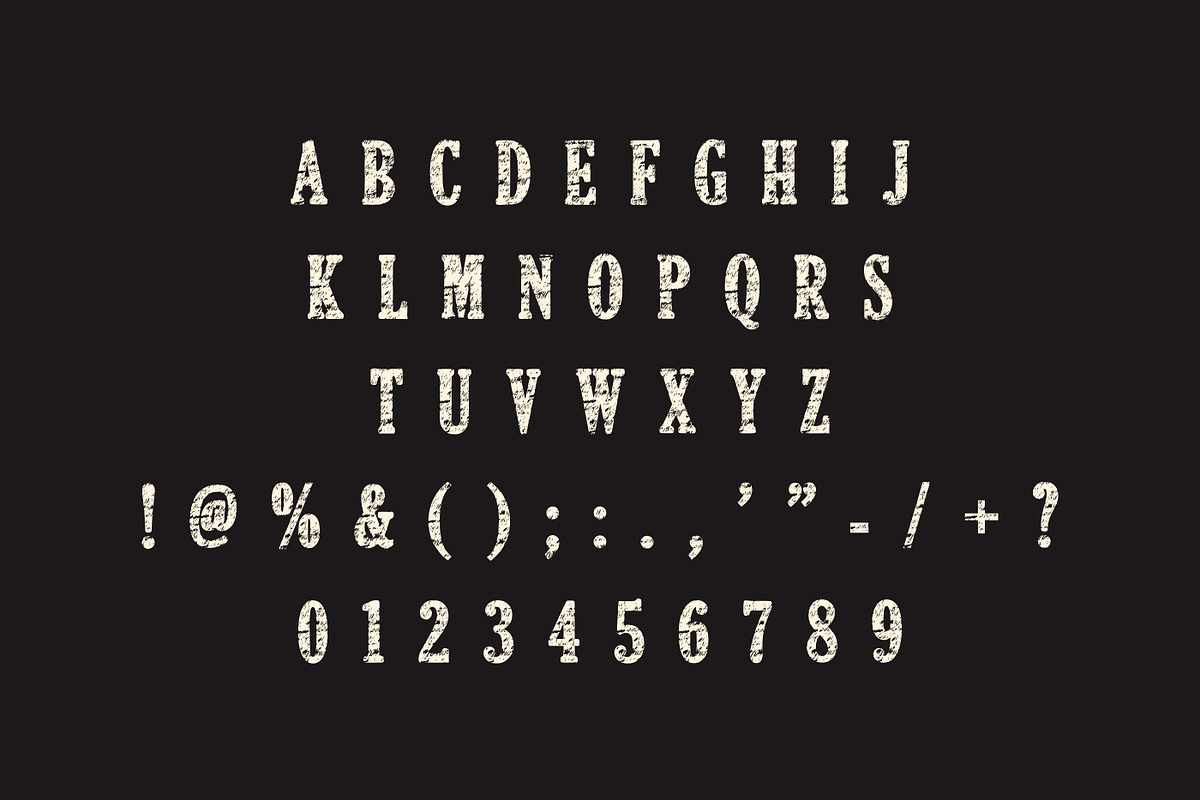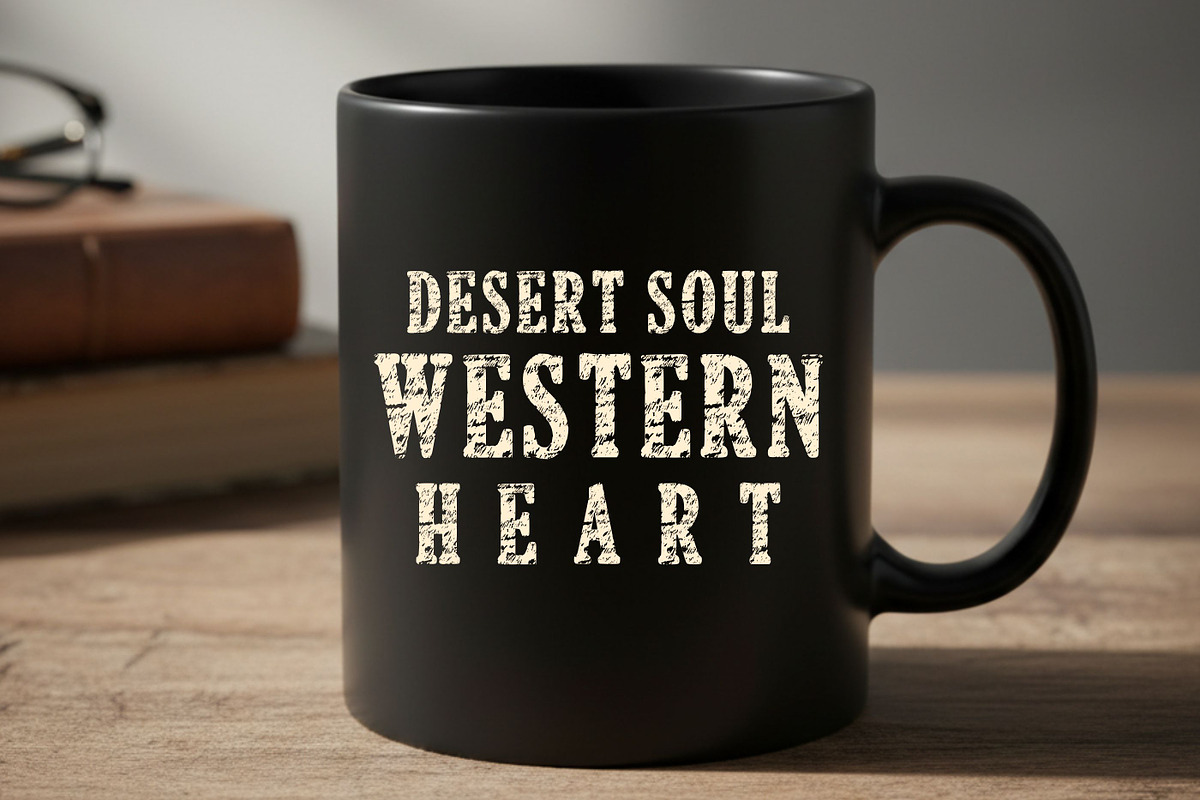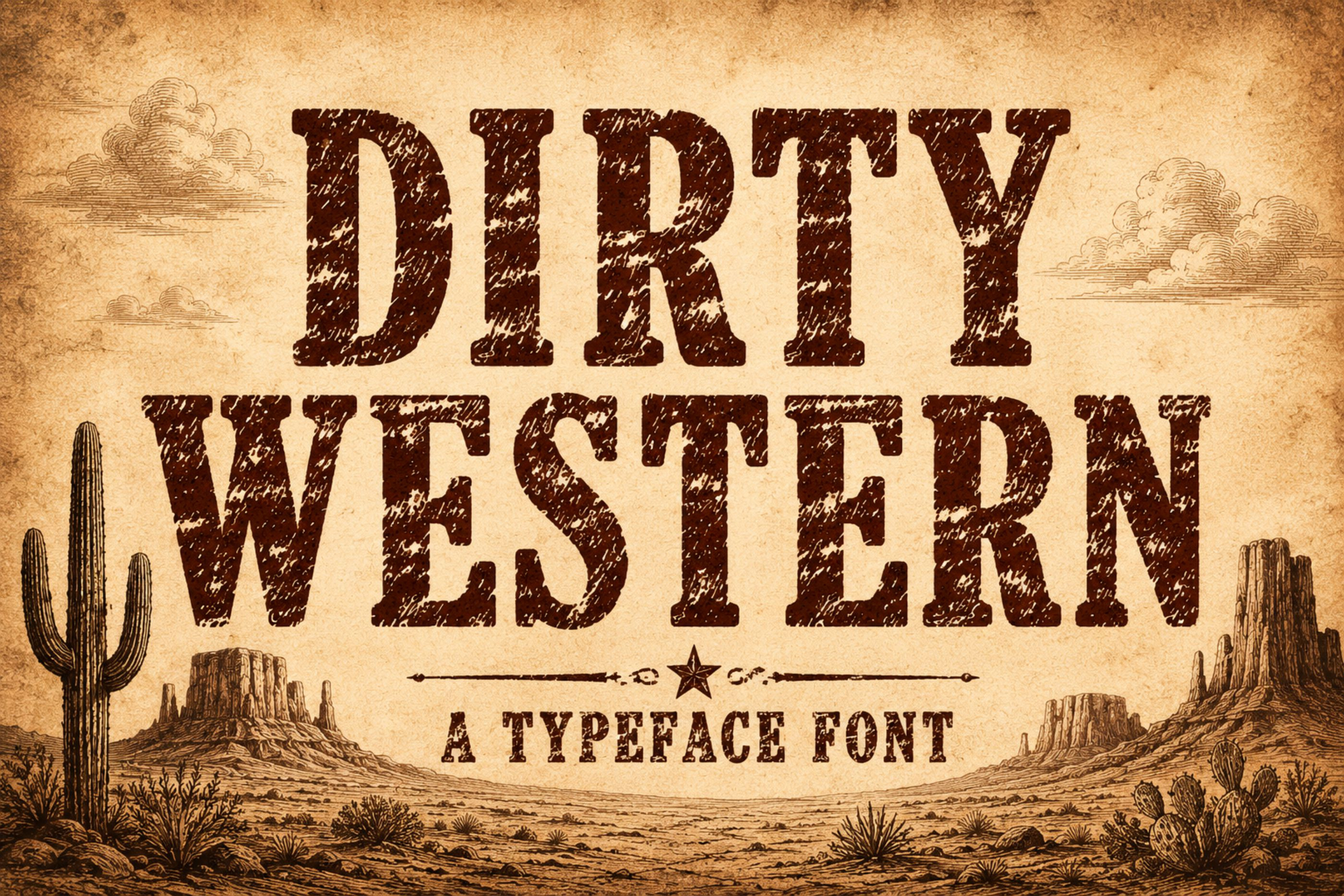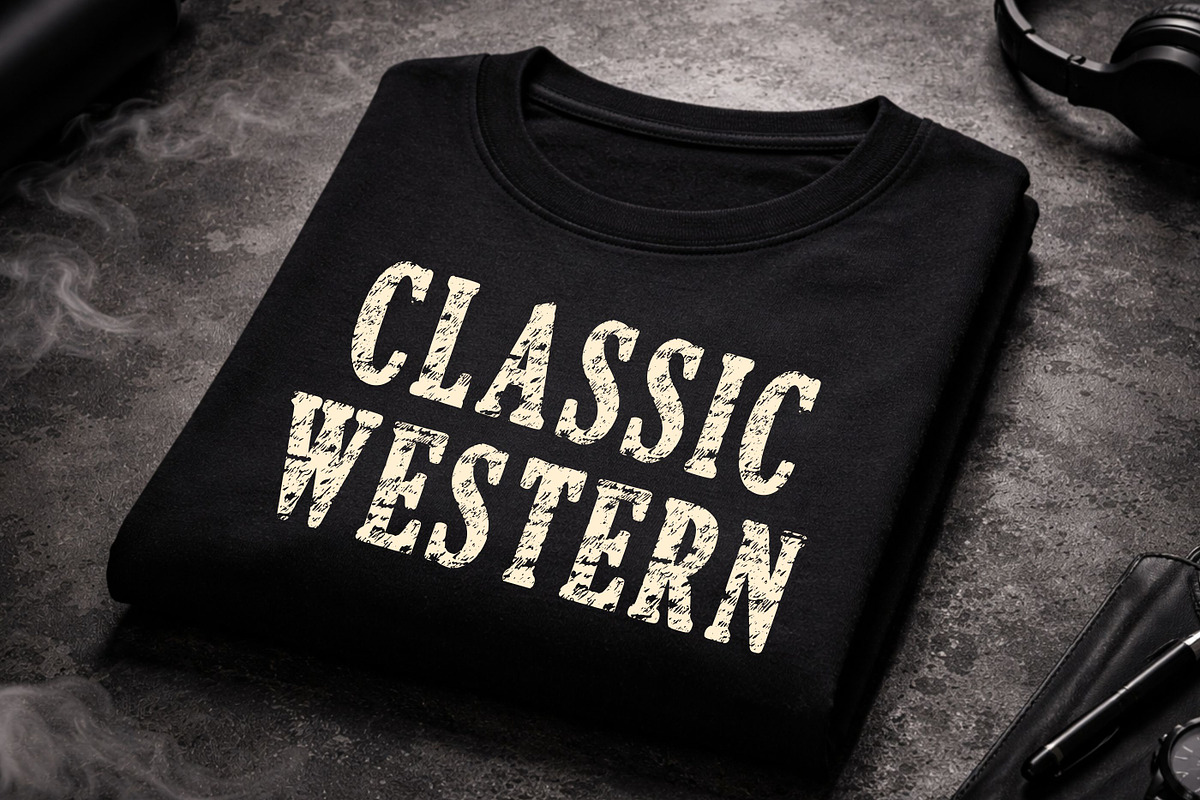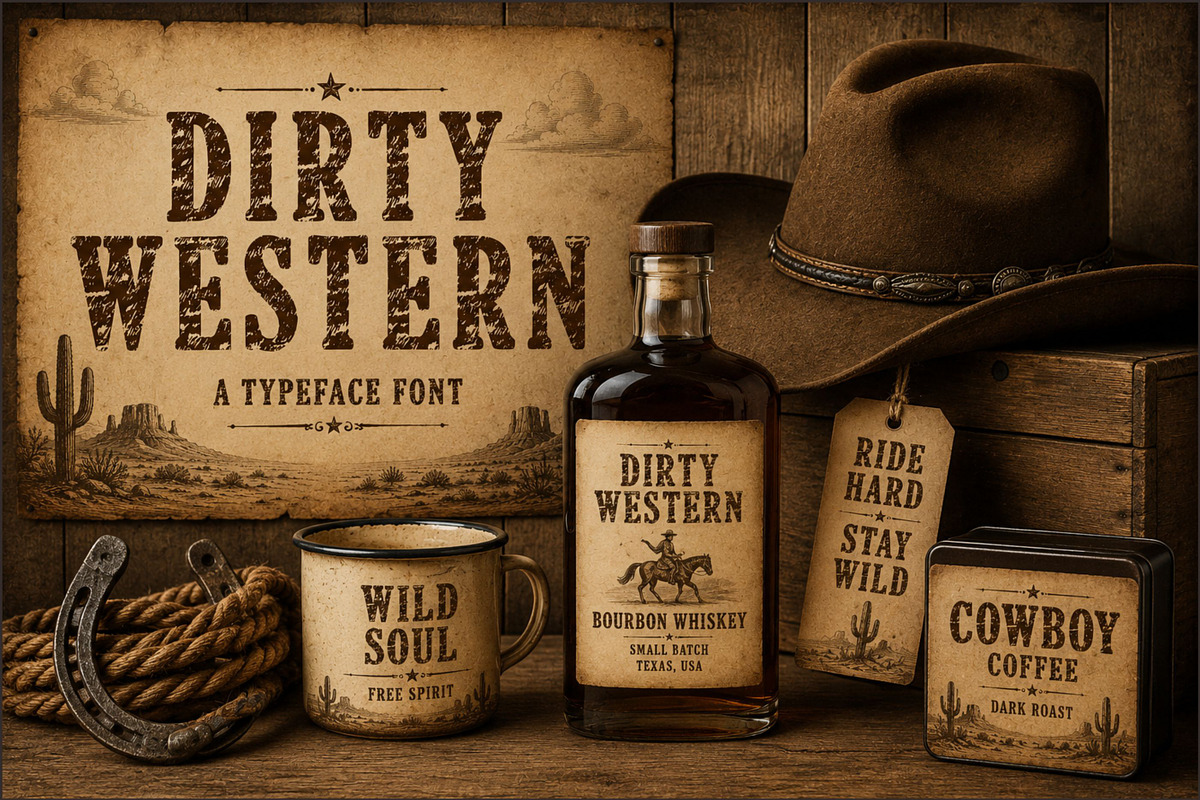
Dirty Western - Vintage Cowboy Font
Bring the spirit of the Wild West to your creative projects with Dirty Western, a bold vintage display font designed with authentic distressed textures and classic cowboy styling.
Its rugged serif characters capture the look of antique wood signage, western movie posters, ranch branding, and old frontier typography. The weathered appearance adds character and authenticity, making it ideal for designs that need a strong rustic personality.
Whether you're creating authentic western branding or vintage-inspired artwork, Dirty Western delivers bold impact with timeless frontier charm.
Uppercase Characters
Vintage Western Style
Distressed Texture
Bold Display Typeface
Cowboy Inspired
Rustic Character
Strong Serif Design